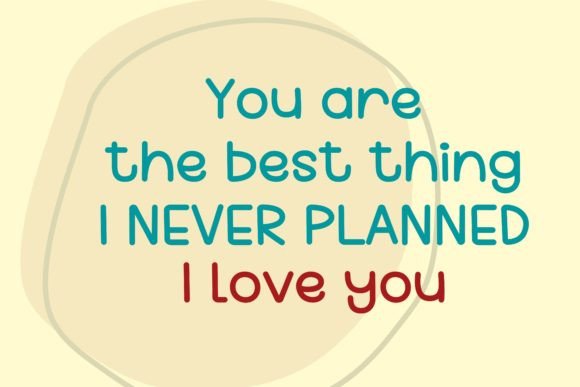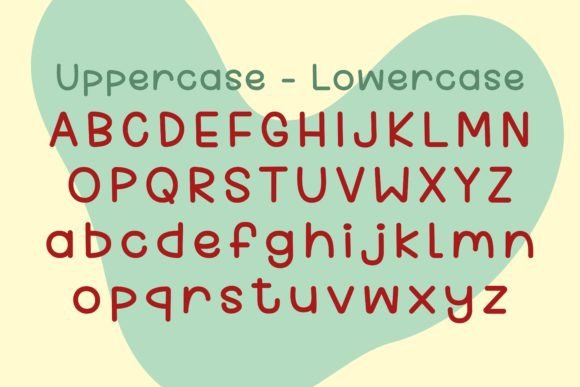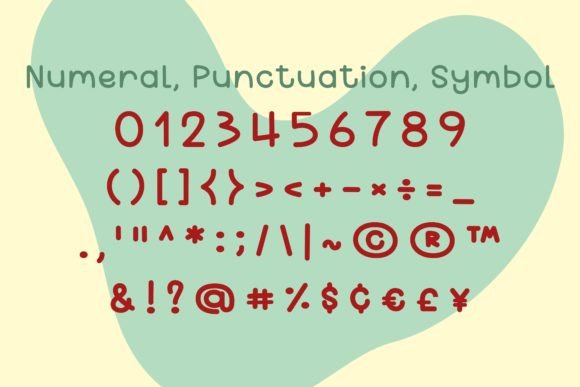
Introduction to Makultan Font
Makultan is designed in a cute and friendly handwritten sans serif font style.
It would be awesome to your projects or diary planner Let’s try it to your perfect projects such as Easter, back to school, wedding, party decoration, invitations, Fall, Halloween, Christmas, posters, blogs, clothing, child-related designs, greeting cards, social media posts or anything that needs a friendly touch.
Makultan Font offers exceptional quality and versatility, making it a valuable addition to your design toolkit. Whether you’re creating for personal projects or commercial use, Makultan Font delivers professional results.